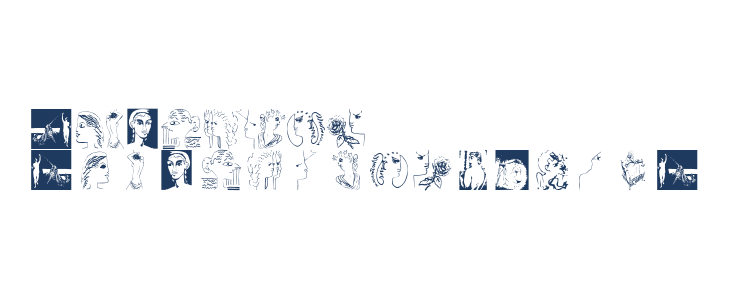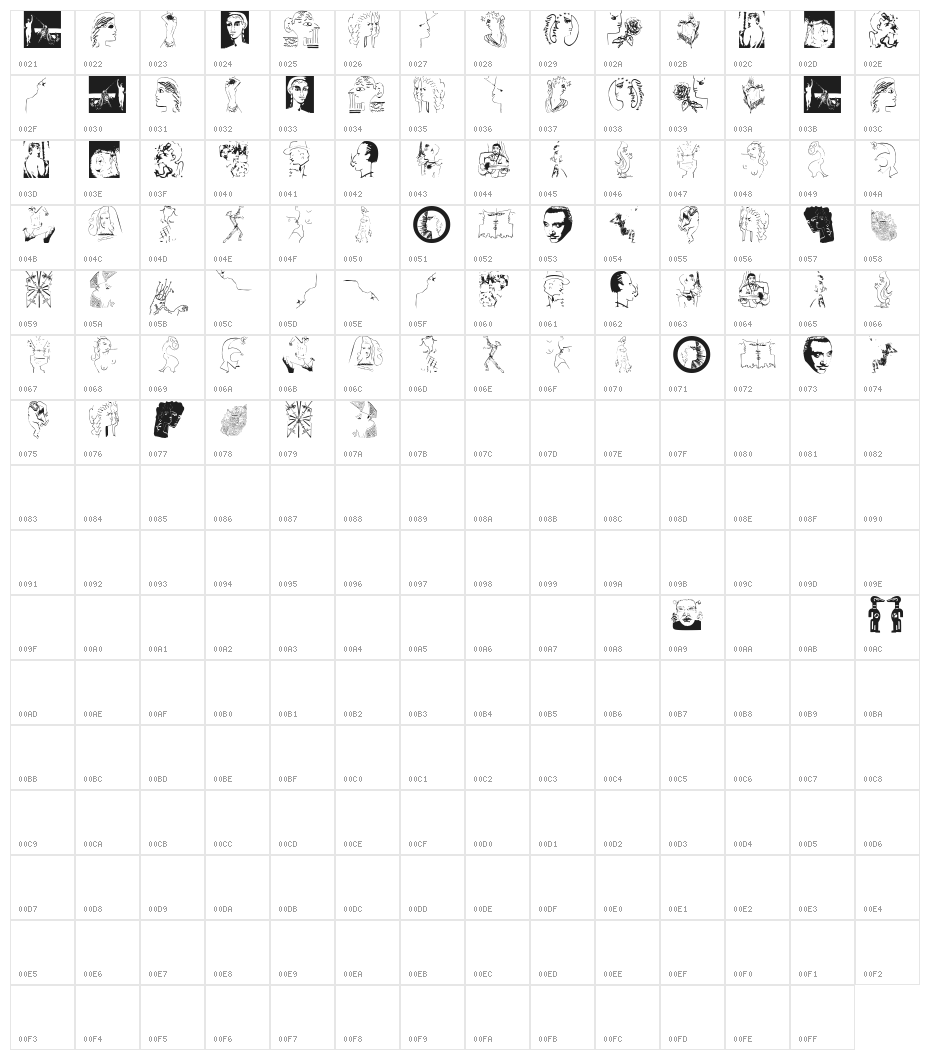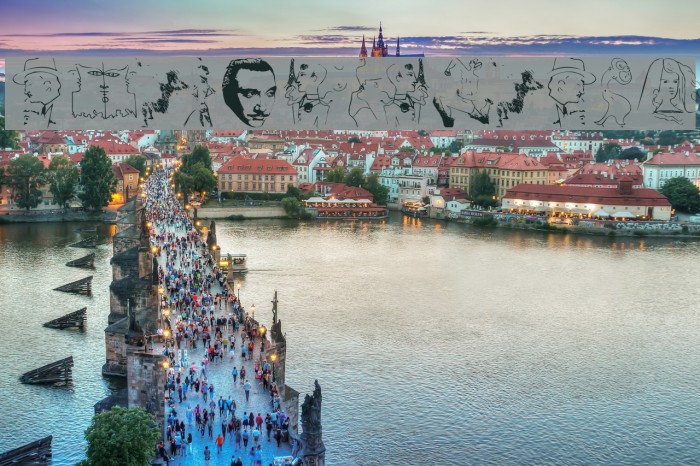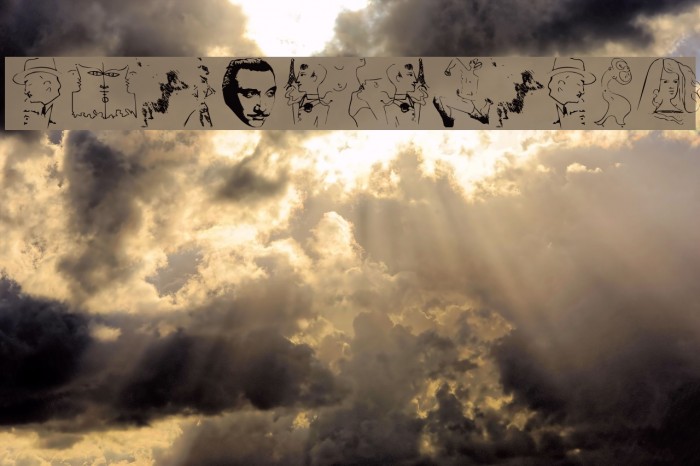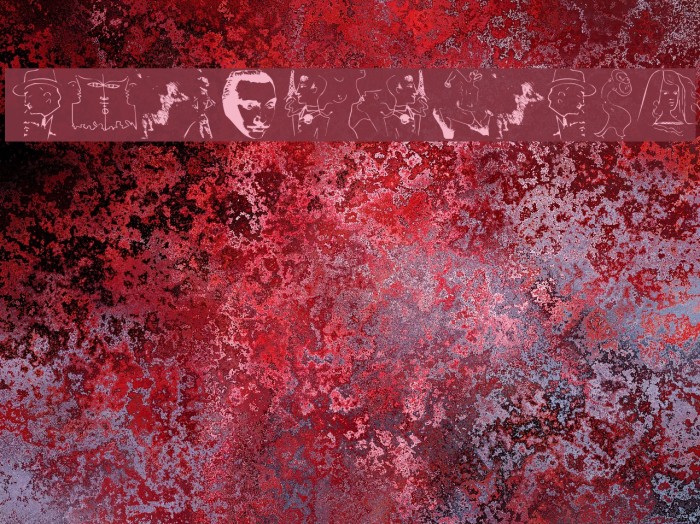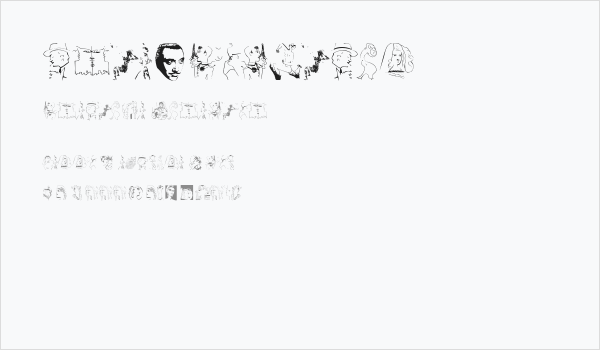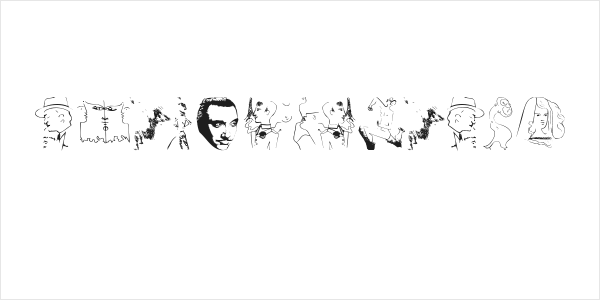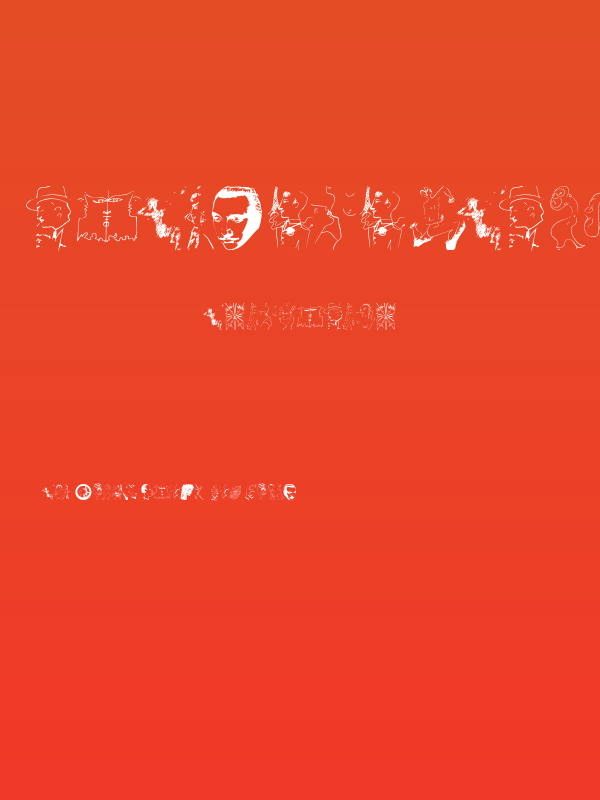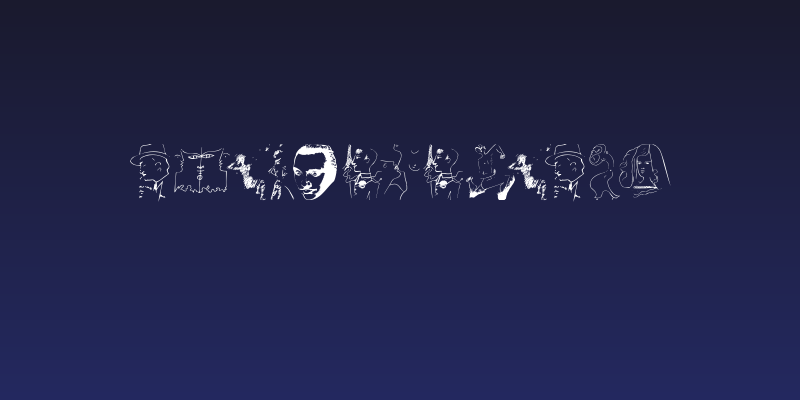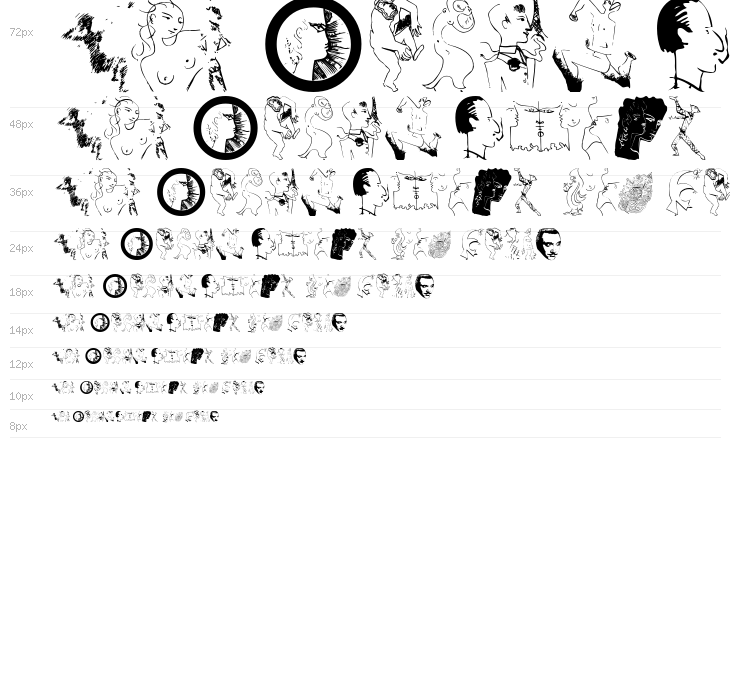
ArtesCocktail Font
ArtesCocktail Description
This is not a traditional font but rather a collection of artistic illustrations and sketches. Each character is represented by a unique drawing, ranging from abstract faces to intricate patterns. The style is eclectic and expressive, capturing a sense of creativity and individuality. The characters are not uniform in size or shape, emphasizing a hand-drawn, artistic approach. This collection is more suited for decorative purposes rather than functional text communication.
| Overall Style | Artistic, Eclectic |
| Use Case | Decorative elements, Artistic projects |
| Proposed Projects | Ideal for art projects, creative posters, or any design work that requires a unique and artistic touch. |